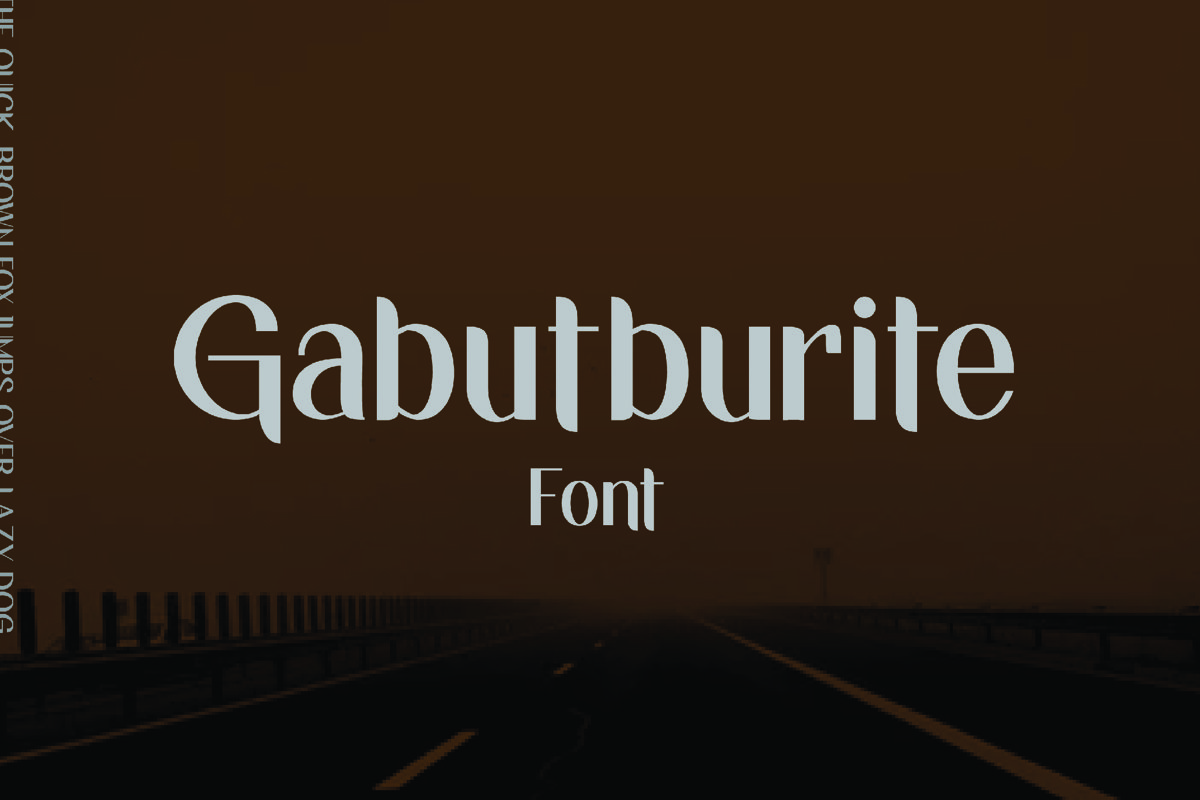
Gabutburit
Gabutburit font is a great font. Nice for display font. Would be perfect for poster, packaging, advertising, quotes and anything where you want.
Gabutburit is also experimental, it only perfect on Photoshop, Illustrator and other design applications. The Sans Serif includes carefully constructed built-in opentype kerning pairs to ensure impeccable letter spacing throughout the font. Typically, in any all-caps serif font, there are certain letter pairs (such as OV AW AT AY AV WO and many more ) that often look incorrectly spaced when coupled together, due to their natural dimensions. Built-in opentype kerning pairs eliminate this issue - meaning perfectly balanced letter spacing no matter what you type.